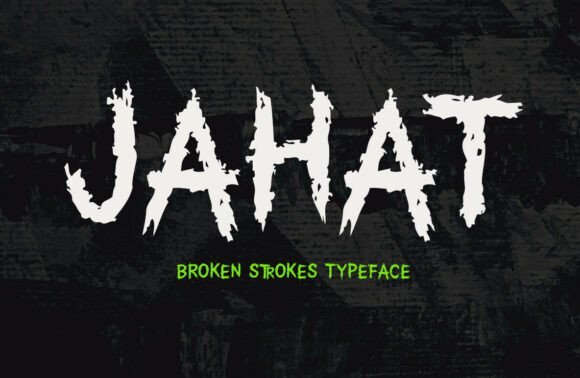
The Dark Allure of Typography: Unleashing the Power of the Jahat Font
As a designer, you’ve probably found yourself stuck in a creative rut, searching for that perfect font to give your project an edge. You’ve scoured the depths of font libraries, only to settle for something that’s just…safe. But what if I told you there’s a font that defies convention, a font that screams rebellion and chaos? Welcome to the world of the Jahat Font.
This font is not for the faint of heart. Its jagged shapes and fractured lines seem to writhe and twist on the page, exuding an aura of malevolence that’s perfect for horror posters, metal band logos, or any design that needs a touch of darkness. And with its PUA-encoded features, you’ll have access to all the glyphs, swashes, and alternate characters you need to customize your creations to perfection.
- Unique Characteristics: The font features a unique blend of modern and traditional elements, with intricate details and ornaments that set it apart from other fonts.
Jahat Font Review
I recently had the chance to work with the Jahat font, and I must say it was an… interesting experience. ✨
Here are a few things that worked well:
- Unique aesthetic: Jahat font has a distinct, playful style that’s perfect for projects that need a bit of whimsy.
- Good legibility: Despite its quirky appearance, Jahat font is still relatively easy to read, making it a good choice for body text.
- Good for digital use: Jahat font works well on screens, with clear lines and no issues with pixelation.
- Difficult to use for formal projects: Jahat font’s playful style makes it difficult to use in more formal projects, like business reports or academic papers.
- Limited font weights: Jahat font only comes in a few weights, which can limit its versatility in different design contexts.
- Not ideal for small text: Jahat font can be a bit too ornate for small text, making it difficult to read in certain situations.
- Creating bold and eye-catching headings and titles.
- Designing playful and engaging social media graphics.
- Adding a unique touch to presentations and documents.
Overall, I’d say Jahat font is a great choice for projects that need a bit of flair, but may not be the best choice for more formal or technical projects. With a bit of caution and careful use, it can be a fun and effective font to work with.
Tips for Getting the Most Out of Jahat Font
Use the Jahat font to add a bold and playful touch to your headings, titles, and captions.
Experiment with different font sizes and colors to create a unique visual effect.
Combine the Jahat font with other fonts to create a visually appealing contrast.
The Jahat font is ideal for: